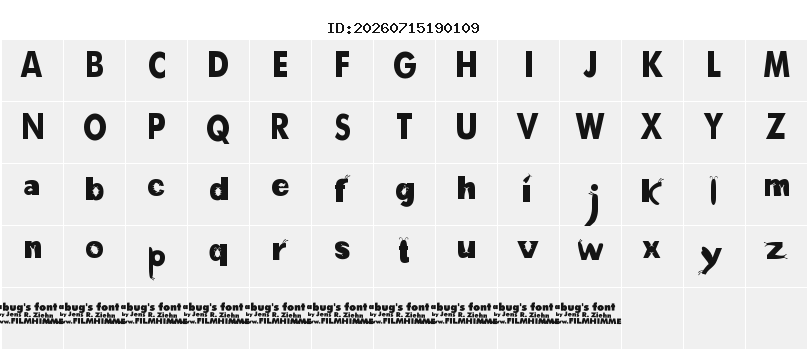
a bug's life Preview
• Font Name: a bug's life
About a bug's life.ttf
a bug's life.ttf is a modern, elegant sans-serif font designed for ultimate readability and visual harmony. Perfect for branding, headlines, web design, and print materials.